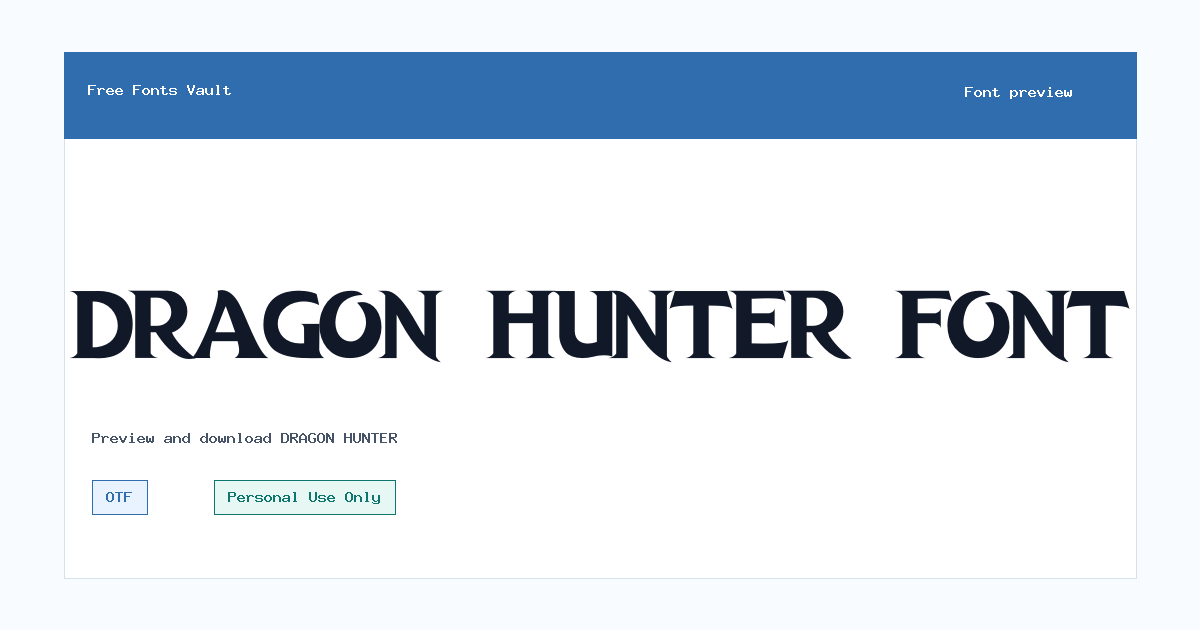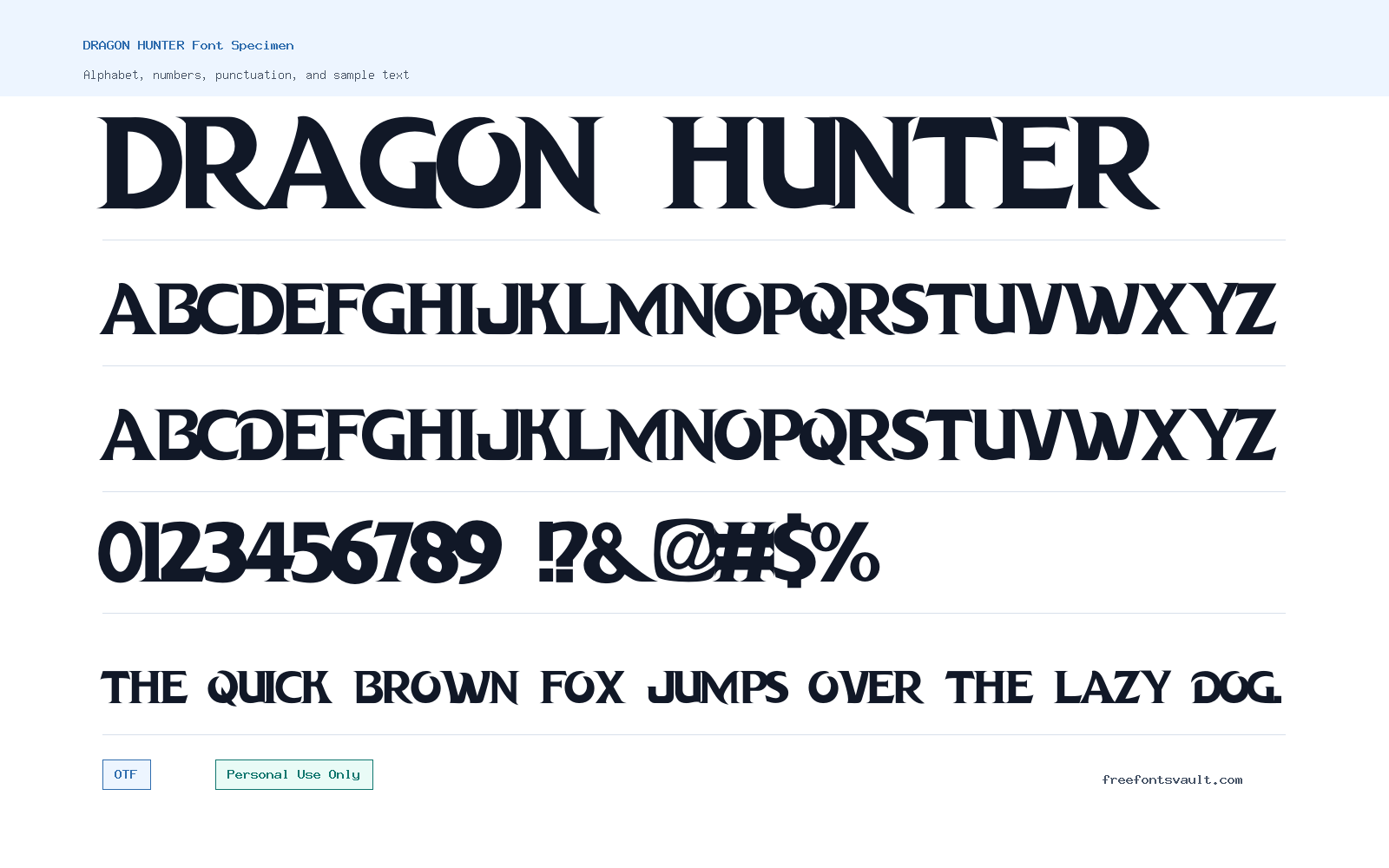
DRAGON HUNTER
- Designer Yudistira
DRAGON HUNTER font.
Dragon Hunter is a display font for bold title work, short labels, and themed lettering where the font name and style can set a strong mood quickly.
About Dragon Hunter Font
Dragon Hunter comes as a regular OTF font file, making it easy to install and test in common design apps. Because it is a display-style family with one regular variant, it is best approached as a headline font rather than a long-reading text face. Try it first in short words, names, poster titles, gaming-style headings, cover text, or social graphics where a single line needs more character.
- Single-weight display family suited to short, attention-focused text
- Posters, thumbnails, headers, and title graphics
- Fantasy, game, event, or dramatic short-text layouts
Who designed Dragon Hunter?
The font is credited to Yudistira.
What is Dragon Hunter best used for?
Use it for short display text such as titles, posters, thumbnails, headers, and themed graphics. It is not the best choice for long paragraphs.